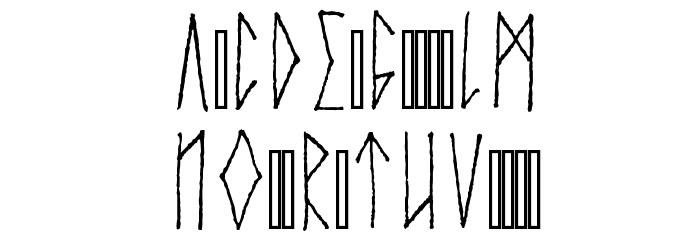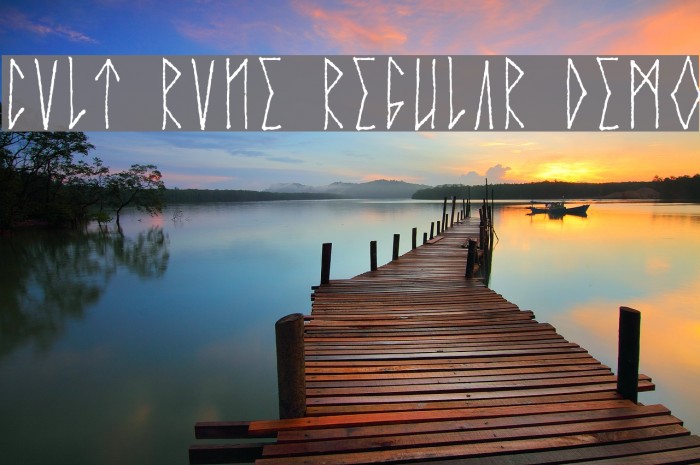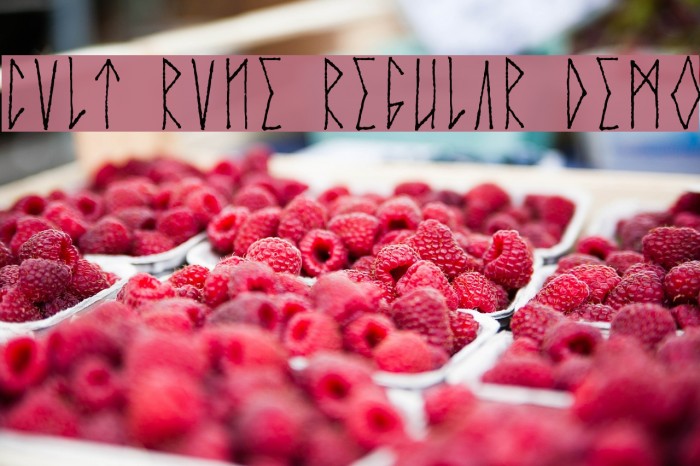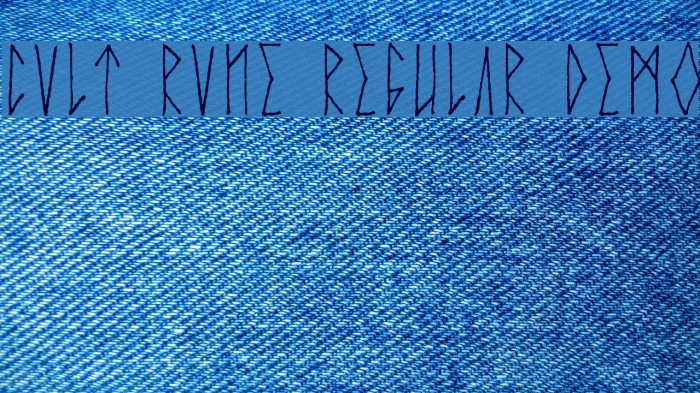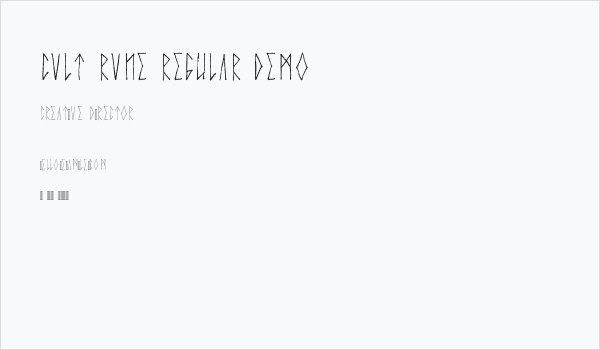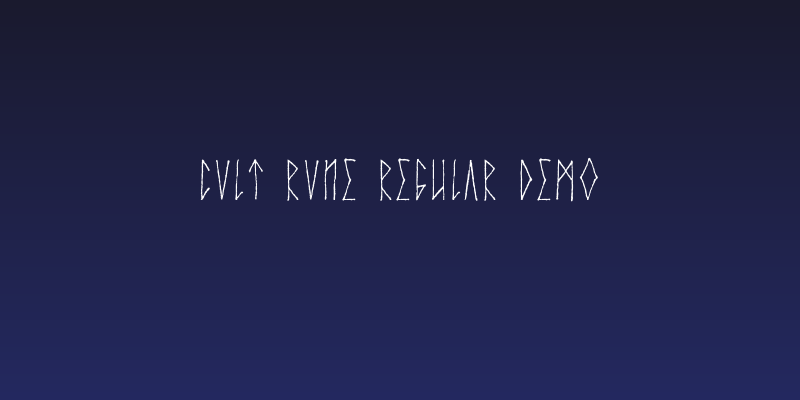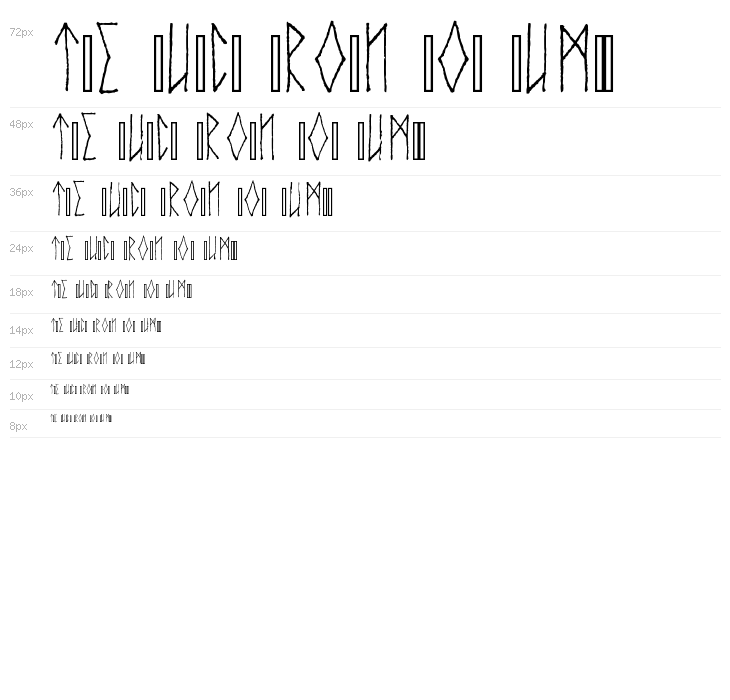
Cvlt Rvne Regular Demo Font
Cvlt Rvne Regular Demo Description
This font features a unique, ancient rune-inspired design with a hand-drawn aesthetic. The characters are tall and narrow, with uneven strokes that mimic the appearance of carved stone or wood. The lines are slightly rough, giving the font a rustic and historical feel. Each letter maintains a consistent height, but the irregularities in stroke width and angle add a dynamic and organic quality. The font lacks traditional serifs, instead relying on its distinctive angular shapes to create visual interest. It evokes a sense of mystery and antiquity, making it suitable for projects that require a touch of the archaic or mystical.
| Use Case | Logos, Headlines |
| Proposed Projects | Ideal for fantasy book covers, historical themed events, escape room branding, or any project needing a mystical or ancient touch. |